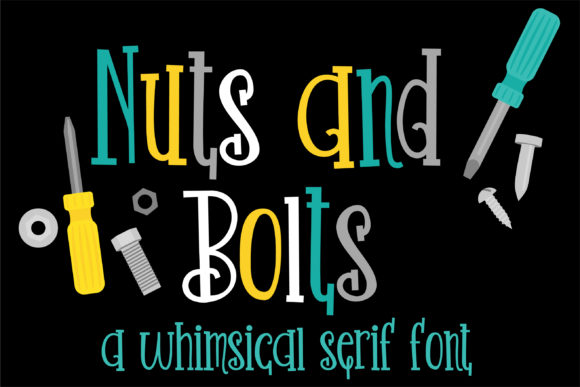
**Nuts and Bolts: The Font That Will Ignite Your Imagination**
Welcome to the world of typography, where a single font can transform your designs from ordinary to extraordinary. Introducing Nuts and Bolts, a captivating serif font that will add an undeniable charm to all your creative projects.
Imagine your designs bursting with personality, captivating your audience with every stroke. With Nuts and Bolts, you'll have the power to craft eye-catching headlines, memorable logos, and elegant body text that will leave a lasting impression.
Crafted by the masterminds at Illustration Ink, Nuts and Bolts is a true masterpiece. Its playful nature will add a touch of whimsy to your creations, while its unwavering elegance will give them a sophisticated touch.
Unlock your creativity with Nuts and Bolts and witness the transformation of your designs. Let its captivating curves and sharp angles inspire your imagination and ignite your passion for typography.
**Why You'll Love Nuts and Bolts:**
* **Evoke Emotions:** Create designs that resonate with your audience on a deeper level.
* **Make a Statement:** Command attention and leave a lasting impression with every design.
* **Express Your Style:** Reflect your unique personality and aesthetic through captivating typography.
* **Amplify Your Brand:** Elevate your brand identity with a font that embodies your values and vision.
* **Inspire and Captivate:** Fuel your creativity and engage your audience with every design.